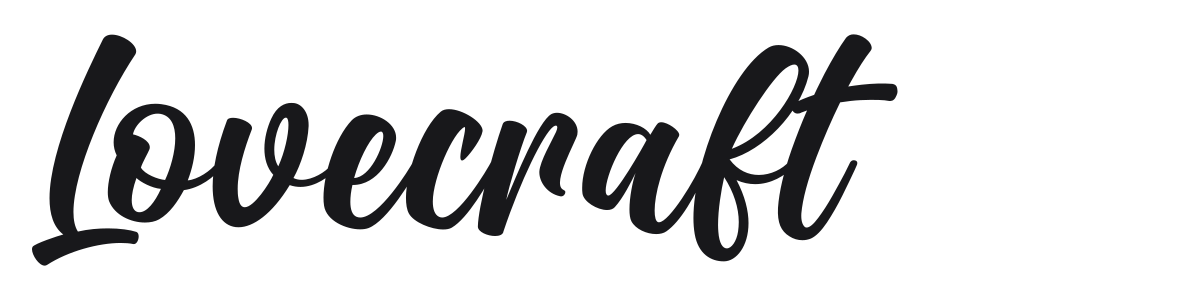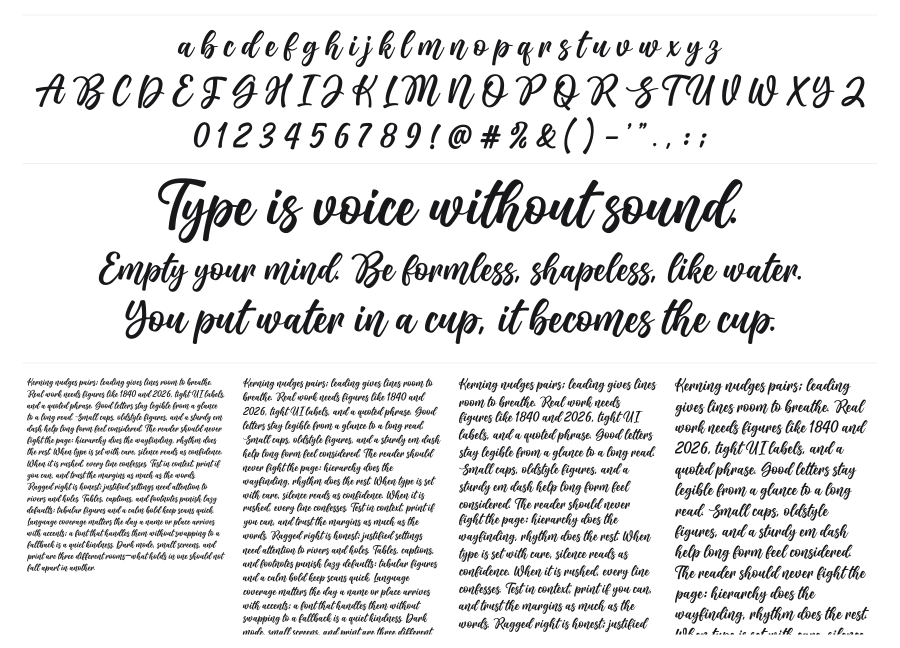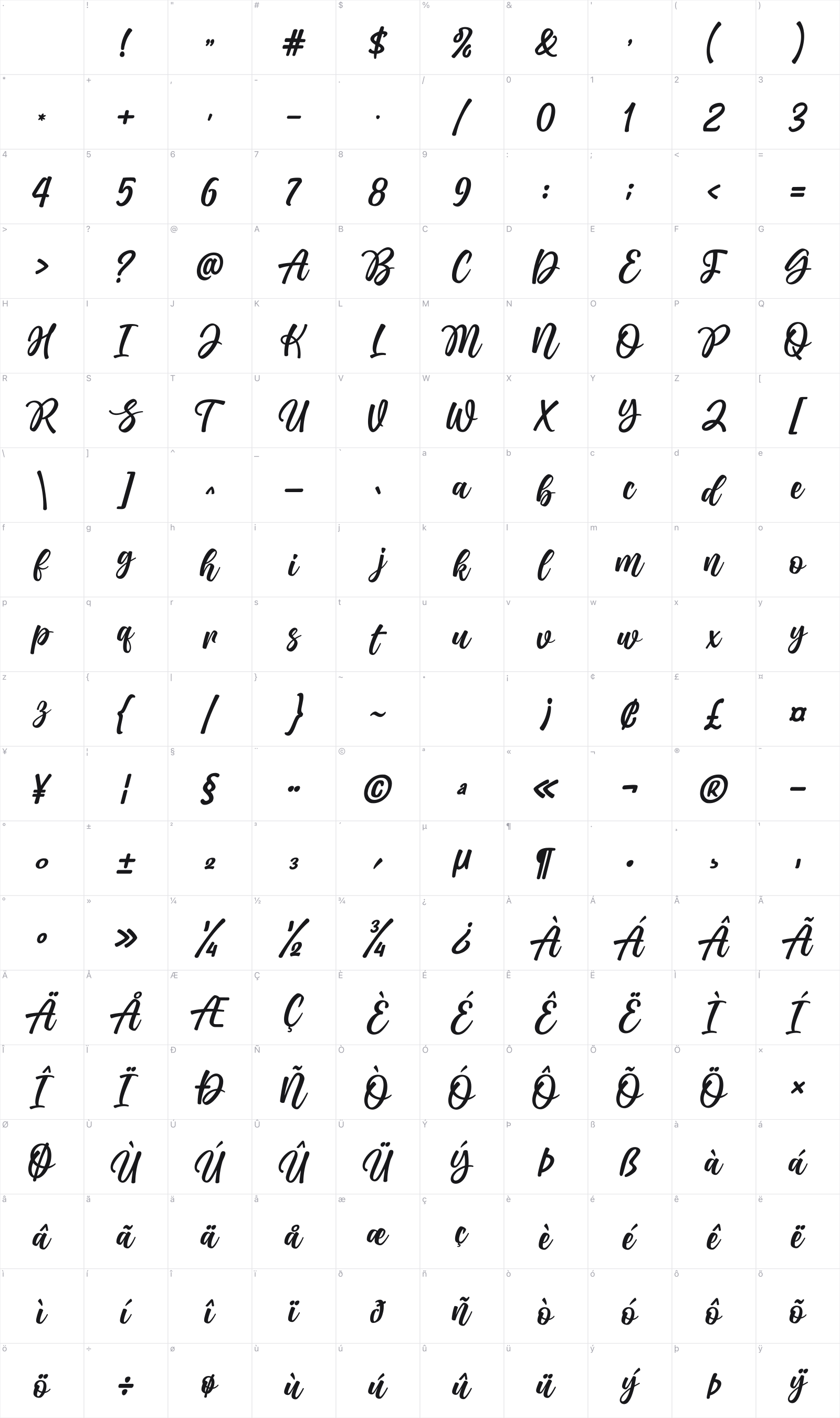
Lovecraft
Lovecraft is a bold brush script with expressive stroke contrast and a fluid, connected rhythm. Its lively loops and dynamic energy give it a handcrafted warmth that works well for branding, packaging, and social media graphics. The generous weight keeps it legible at headline sizes without losing its casual, personal feel.